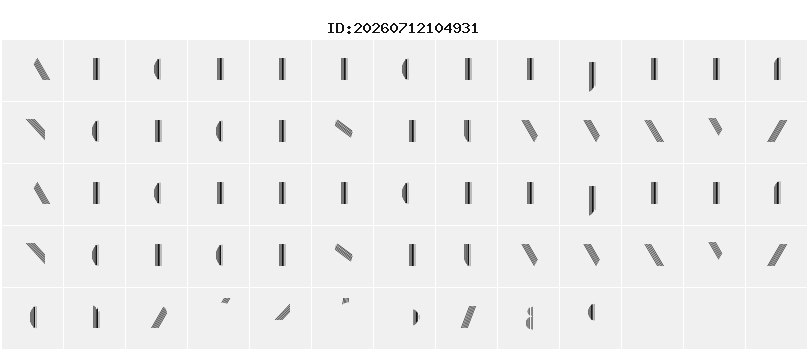
Manbow Stripe Preview
• Font Name: Manbow Stripe
• Designer: Ray Larabie
• Manufacturer: Ray Larabie
About Manbow Stripe.ttf
Manbow Stripe.ttf is a modern, elegant sans-serif font designed for ultimate readability and visual harmony. Perfect for branding, headlines, web design, and print materials.